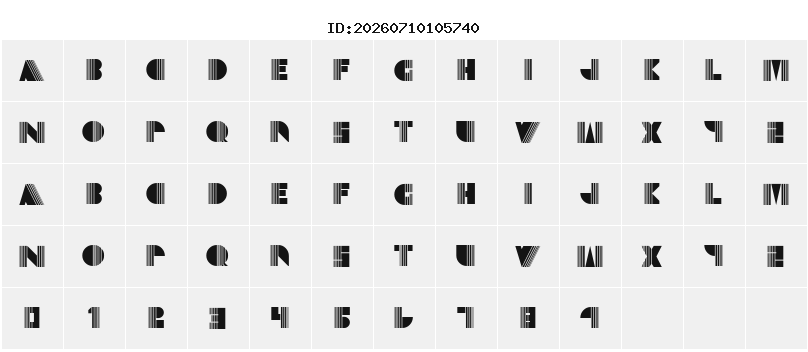
• Font Name: Echo Deco
• Full Font Name: Echo Deco
About Echo Deco.ttf
Echo Deco.ttf is a modern, elegant sans-serif font designed for ultimate readability and visual harmony. Perfect for branding, headlines, web design, and print materials.